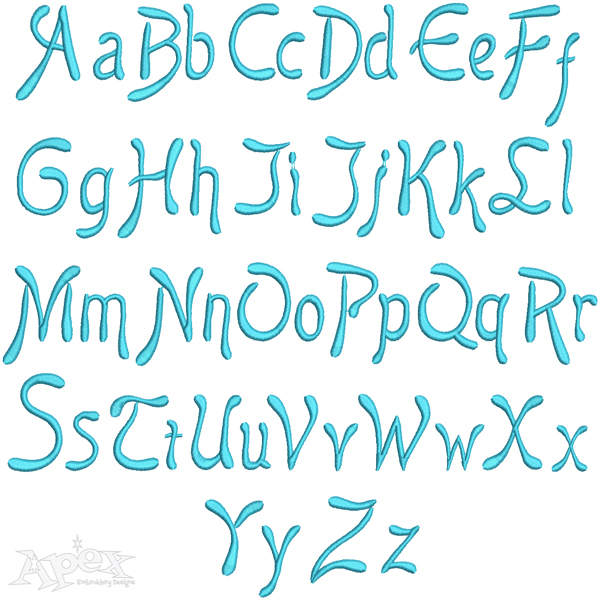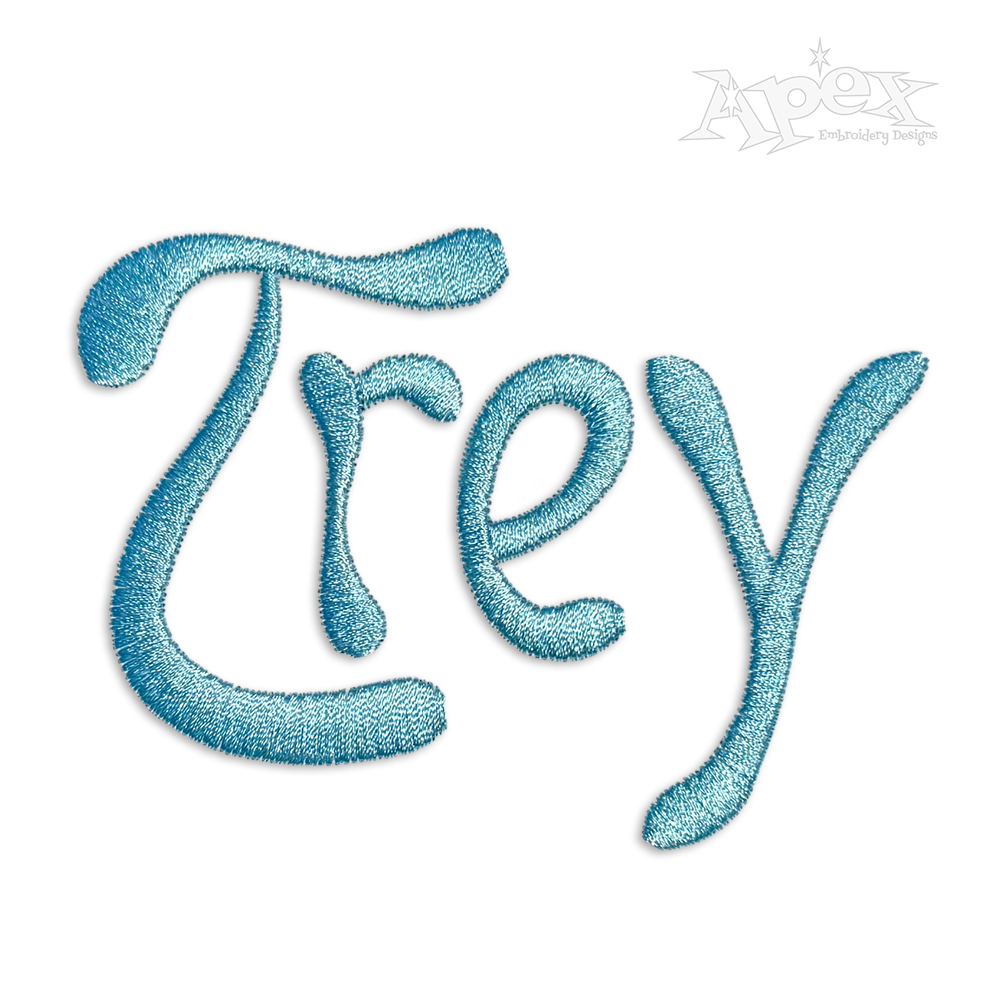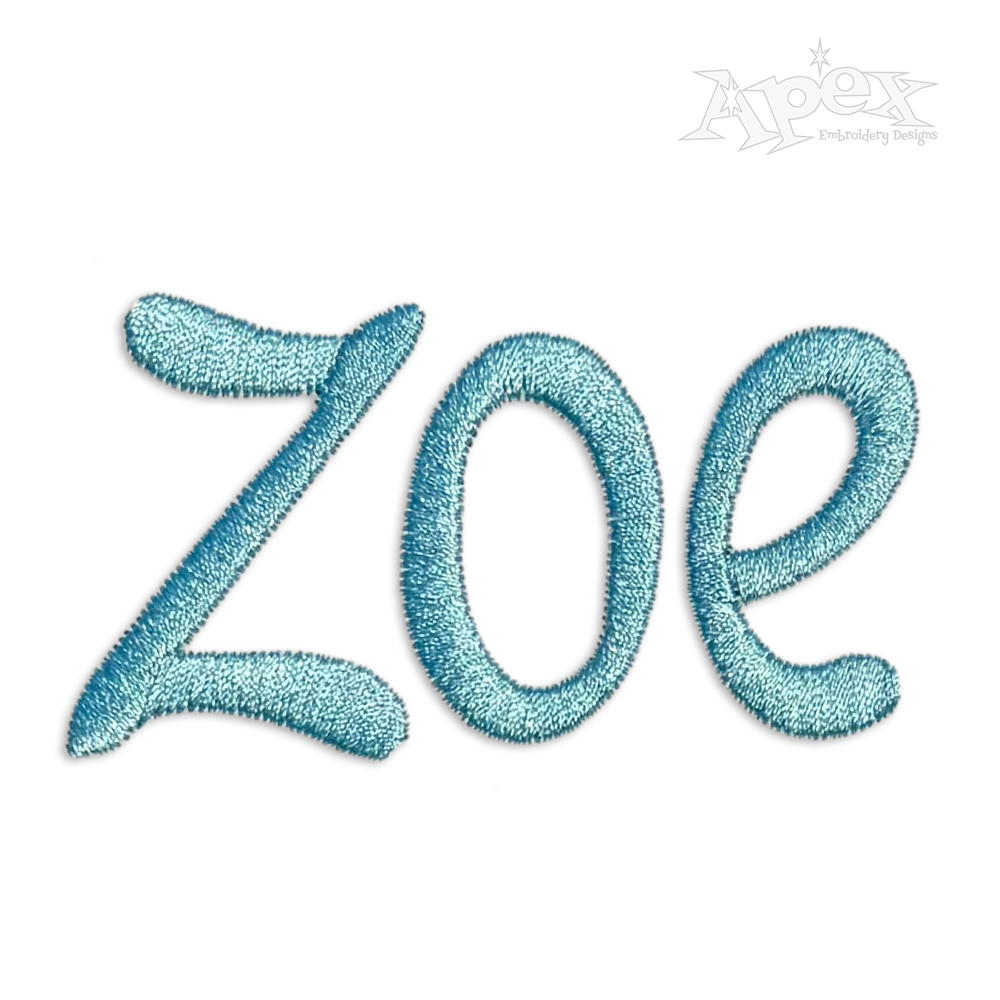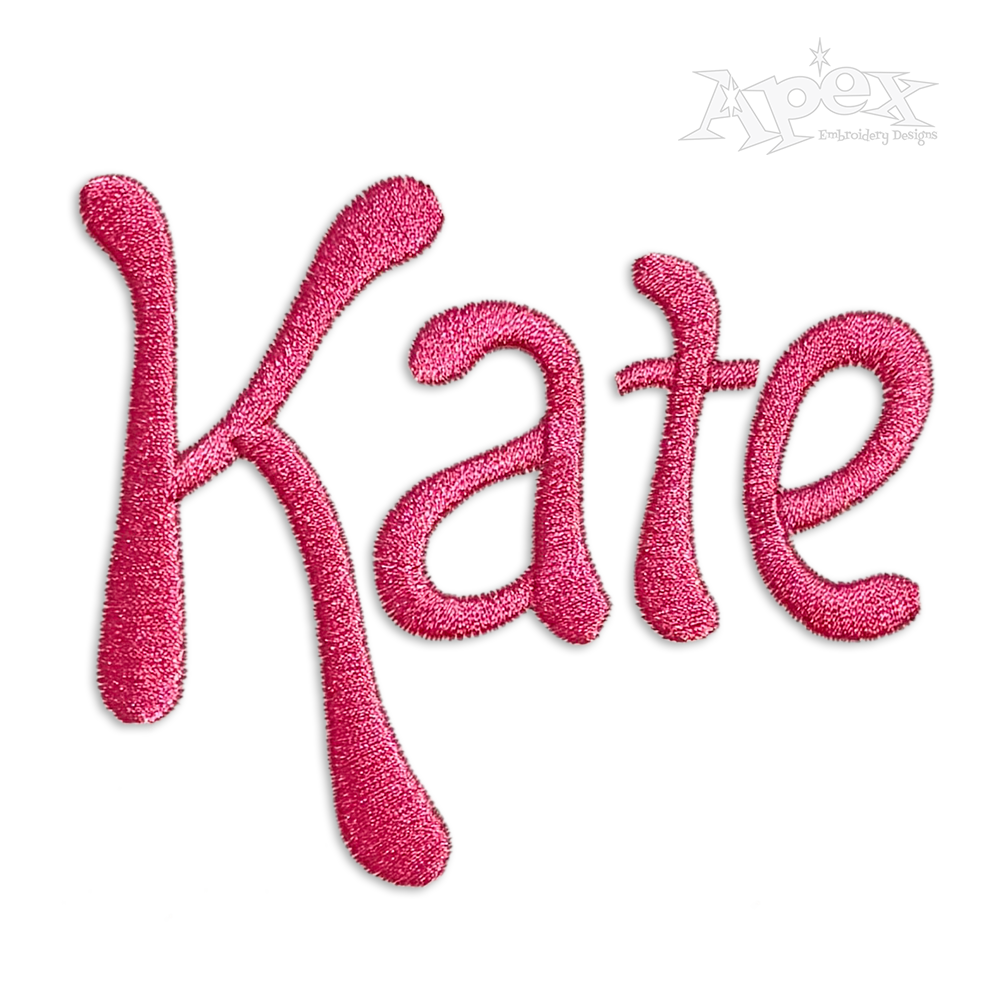
Boomerang Embroidery Fonts and Designs
Brimming with retro momentum and the spirited energy of childhood adventure, the Boomerang Embroidery Font was born from a desire to create a playful, aerodynamic alphabet with distinct mid-century flair. Each letterform glides with subtle curves and confident angles, evoking the joyous arc of a favorite outdoor toy sailing across an open summer sky. Paired with its whimsical, effervescent bubble accent designs, this typography suite brings an irresistible sense of laughter, motion, and boundless curiosity to custom children's embroidery and personalized keepsake creations.
The buoyant cadence of the Boomerang letterforms gives you immense flexibility when planning your embroidery layouts:
Boomerang Embroidery Font Craft & Letterform Details
Digitizing a font with this much lively personality demands deliberate stitch mapping. Rather than relying on rigid, mechanical columns, each stroke of Boomerang has been manually routed to honor the natural momentum of the letterforms. Sweeping arches taper seamlessly into bold terminals, supported by a foundational underlay that lifts the glossy satin stitches clean off the fabric surface to prevent sinkage on textured cottons and knits.
The companion bubble designs are crafted with open, airy underpinnings and pristine edge definition, allowing them to sit gracefully around the bolder letters without creating stiff, overly dense stitch zones. The result is a harmonious, tactile stitch-out that catches the light beautifully and retains its supple drape through endless washing and active play.